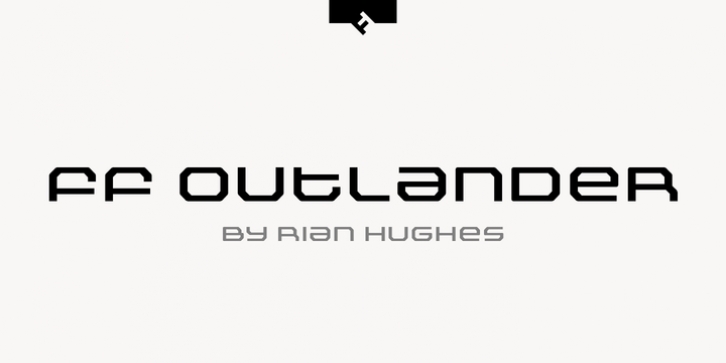
FF Outlander downloadDesigner: Rian Hughes
Publisher: FontFont
British type designer Rian Hughes created this display FontFont in 1995.
The family has 6 weights, ranging from Light to Black and is ideally suited for film and tv, poster and billboards as well as software and gaming.
FF Outlander provides advanced typographical support with features such as ligatures.
It comes with proportional lining figures.